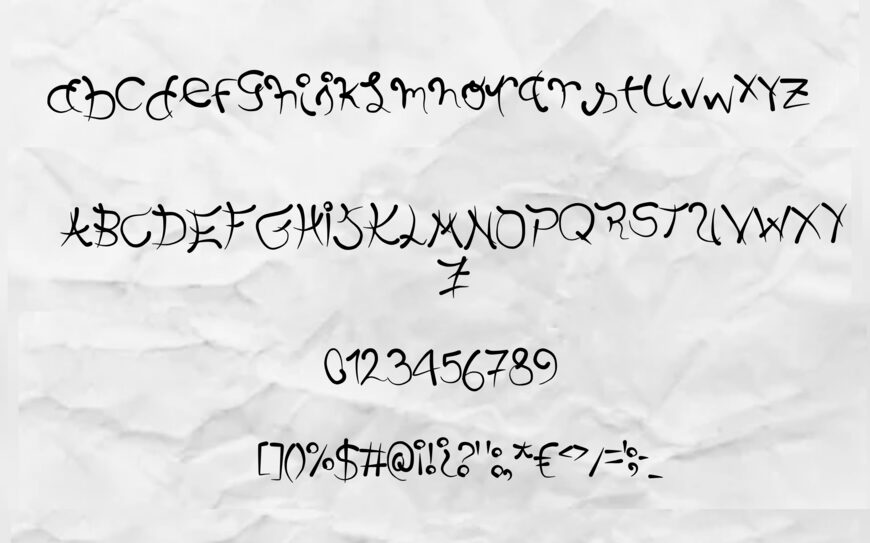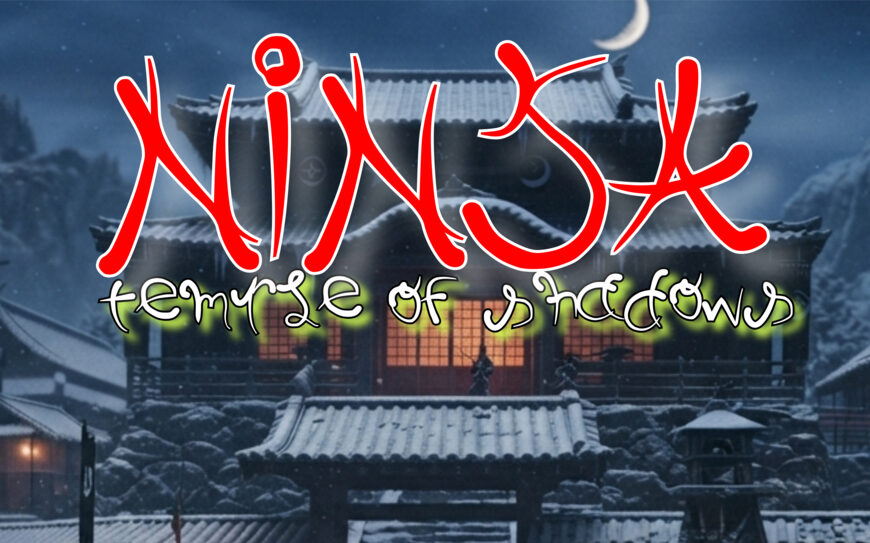
Ninja Font
NINJA is a striking script display font with a strong martial-arts-inspired aesthetic. Its distinctive letterforms create an energetic and powerful visual style, making it well suited for logos, gaming projects, posters, titles, branding, and creative artwork. The font brings a dynamic, mysterious character to designs that need an adventurous or action-oriented feel.